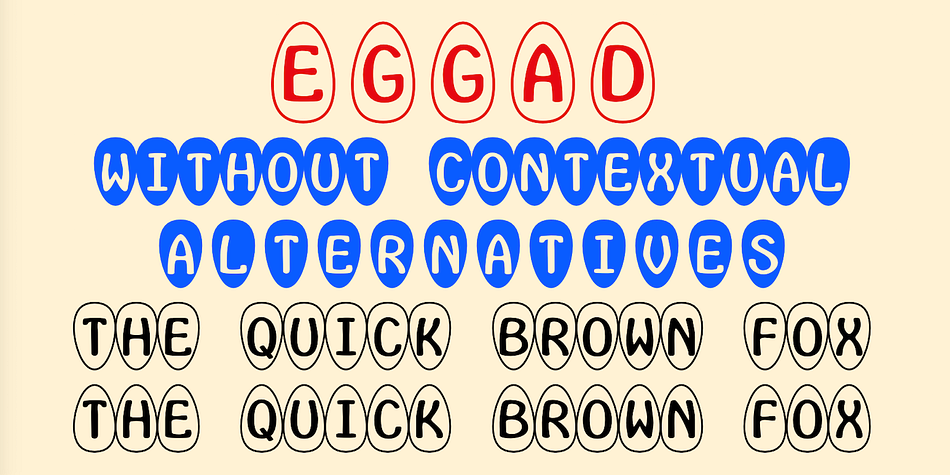
Eggad
Designed by Robert Schenk, Eggad is a monograms and novelty font family. This typeface has two styles and was published by Ingrimayne Type.
Eggad features letters on eggs. It can be a fun font to use at Easter or for any egg-related message. Some of the eggs, those on the upper-case keys, have their large end on the bottom and some, those on the lower-case keys, have their large end on the top. The font uses the contextual alternatives feature of OpenType to alternate the big-bottom and big-top eggs. If you want only eggs with big tops or with big bottoms, turn off this feature.
Eggad comes in two styles, a regular style in which the eggs are outlined and a bold style in which the eggs are solid. Both are monospaced. The two styles can be layered to color the eggs. Alternatively, background color can be added (dot accent and ring characters) or the outline color can be changed (sterling and yen characters) using layers in the regular style. If you are typing numbers and want the start to be big-bottom number, switch on OpenType style set 1.
Foundry Ingrimayne Type
Styles Monograms, Novelty
Designer Robert Schenk